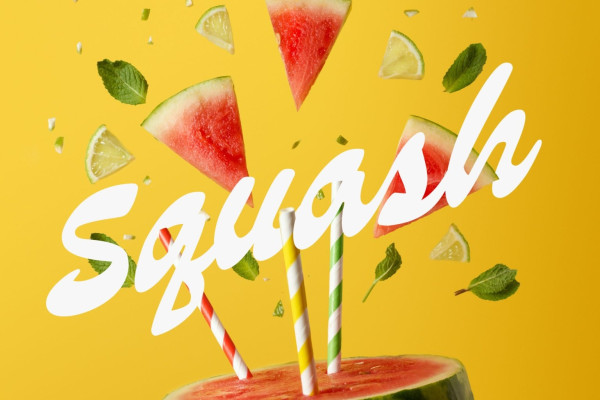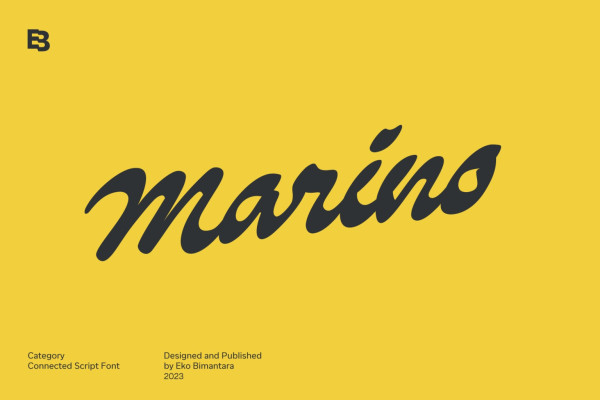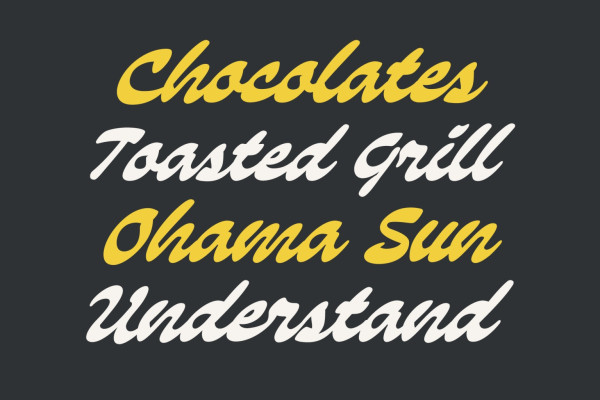
Marino Script Font
Marino Script Font, a bold connected brush script font that exudes softness and ease. Its smooth and versatile caligraphic strokes offer expressive possibilities for various layout designs, logos, websites, brand identities, product packaging, and broad graphic design and creative purposes. Whether for display, large sizes, or captivating headers, Marino is the ideal choice to add a touch of artistry and flair to your projects.